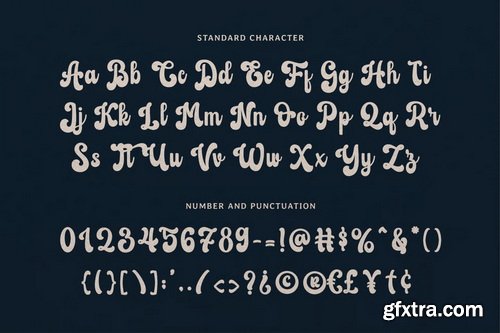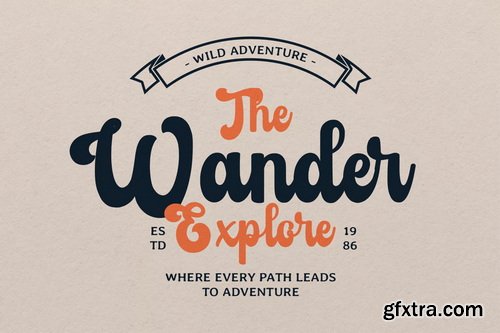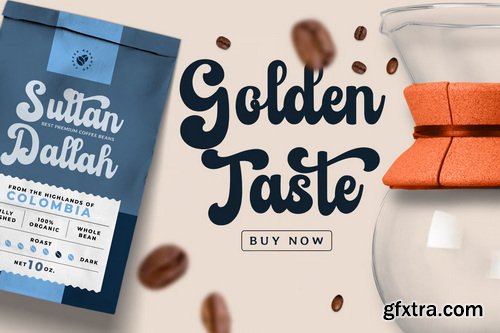
Retro Collection - Vintage Font
Retro Collection – A Blast from the Past in Every Stroke Bring back the timeless charm of the '70s, '80s, and '90s with a handwritten script that captures the spirit of the golden eras. Retro Collection is your go-to font for crafting designs that echo vintage vibes and nostalgic flair. Loaded with charm and functionality, this font is optimized for SVG designs, lettering projects, and seasonal branding. Its well-balanced readability and flair make it perfect for autumn banners, Christmas tags, and spring-themed quotes. Use keywords like retro font, vintage script, handwritten font, Cricut font, 70s style, nostalgic typography, wedding script, seasonal craft font to boost your SEO and reach your creative audience.